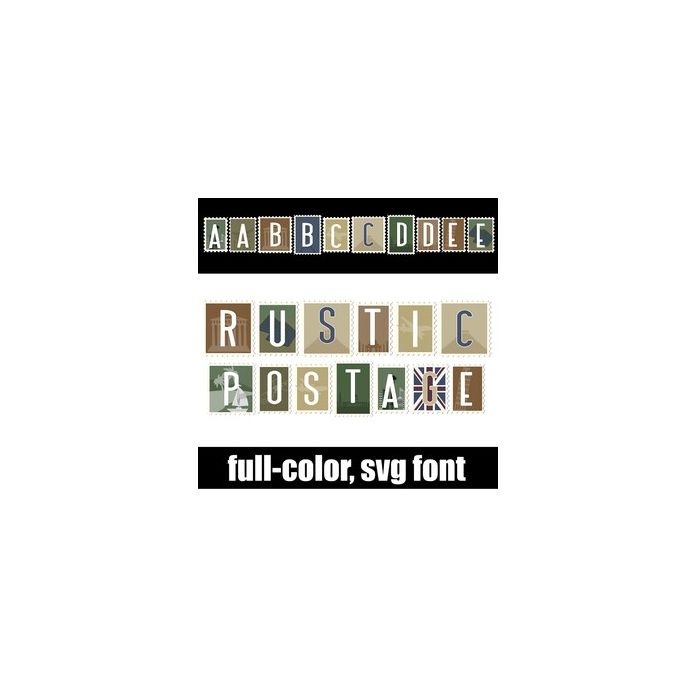
This full-color font features a khaki/military color palette lettering on travel postage. This font works best for titles, displays, posters and more. Please note color fonts will show as black in non compatible programs. This font type is compatible with Silhouette Studio.